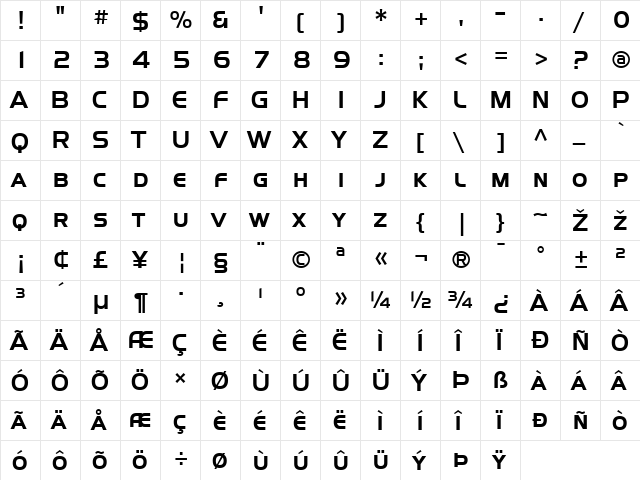
SF Fourche SC Regular
| Foundry | ShyFoundry |
| Designer | Derek Vogelpohl |
Design Context for SF Fourche SC Typeface
SF Fourche SC offers clean, dependable letterforms without strong stylistic allegiance, making it a practical choice for designers who need flexibility.